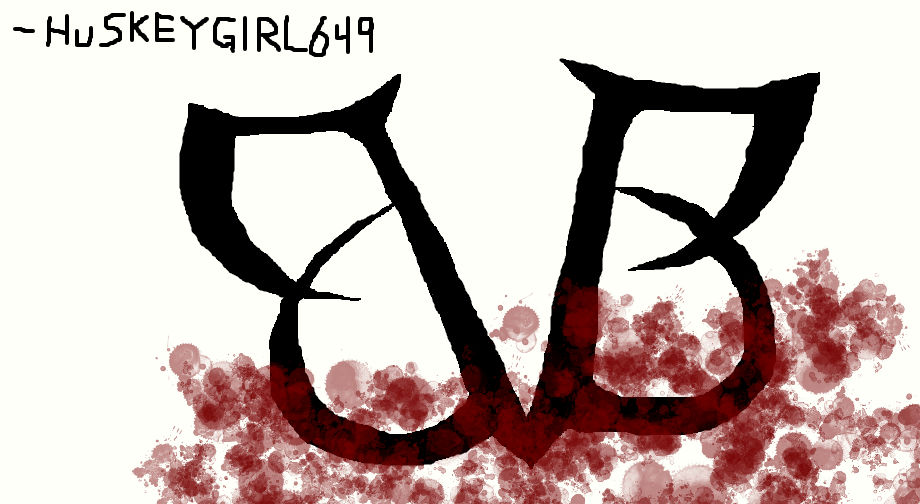
Black Veil Brides Font . The site will redirect you to the front page where you will find the. Every font is free to download! Black veil brides is just been heavily modify to make it unique You can download black veil brides fonts from font sherlock. The font is your local trajan pro font. Click to find the best 1 free fonts in the black veil brides style. Can someone tell me the font that is at the bottom of the picture that says black veil brides? Browse by alphabetical listing, by style, by author or by popularity. Looking for black veil brides fonts? Black veil brides available in windows and mac os x version. Archive of freely downloadable fonts. Fontget has the largest selection of black veil brides fonts and the best black veil brides generator in the marketplace. Free black veil brides fonts (.ttf &.otf).
The font is your local trajan pro font. Browse by alphabetical listing, by style, by author or by popularity. Fontget has the largest selection of black veil brides fonts and the best black veil brides generator in the marketplace. Every font is free to download! Can someone tell me the font that is at the bottom of the picture that says black veil brides? Free black veil brides fonts (.ttf &.otf). Black veil brides is just been heavily modify to make it unique Looking for black veil brides fonts? You can download black veil brides fonts from font sherlock. Archive of freely downloadable fonts.
Black Veil Brides Font The font is your local trajan pro font. Fontget has the largest selection of black veil brides fonts and the best black veil brides generator in the marketplace. Click to find the best 1 free fonts in the black veil brides style. Browse by alphabetical listing, by style, by author or by popularity. Free black veil brides fonts (.ttf &.otf). Black veil brides available in windows and mac os x version. Archive of freely downloadable fonts. Black veil brides is just been heavily modify to make it unique The site will redirect you to the front page where you will find the. You can download black veil brides fonts from font sherlock. Every font is free to download! Can someone tell me the font that is at the bottom of the picture that says black veil brides? Looking for black veil brides fonts?
Download High Quality black veil brides logo font Transparent PNG Black Veil Brides Font The site will redirect you to the front page where you will find the. You can download black veil brides fonts from font sherlock. Free black veil brides fonts (.ttf &.otf). Black veil brides available in windows and mac os x version. Can someone tell me the font that is at the bottom of the picture that says black veil. Black Veil Brides Font.
Black Veil Brides Logo Font Black Veil Brides Font Click to find the best 1 free fonts in the black veil brides style. Black veil brides is just been heavily modify to make it unique Can someone tell me the font that is at the bottom of the picture that says black veil brides? Browse by alphabetical listing, by style, by author or by popularity. The site will redirect. Black Veil Brides Font.
Black Veil Brides Logo Cliparts.co Black Veil Brides Font The site will redirect you to the front page where you will find the. Can someone tell me the font that is at the bottom of the picture that says black veil brides? You can download black veil brides fonts from font sherlock. Free black veil brides fonts (.ttf &.otf). Click to find the best 1 free fonts in the. Black Veil Brides Font.
Black Veil Brides Logo Wallpapers Wallpaper Cave Black Veil Brides Font You can download black veil brides fonts from font sherlock. Looking for black veil brides fonts? Fontget has the largest selection of black veil brides fonts and the best black veil brides generator in the marketplace. Black veil brides is just been heavily modify to make it unique Can someone tell me the font that is at the bottom of. Black Veil Brides Font.
Black Veil Brides Logo Font Black Veil Brides Font Every font is free to download! The site will redirect you to the front page where you will find the. Archive of freely downloadable fonts. Browse by alphabetical listing, by style, by author or by popularity. Free black veil brides fonts (.ttf &.otf). Looking for black veil brides fonts? You can download black veil brides fonts from font sherlock. Fontget. Black Veil Brides Font.
Drawings Of Black Veil Brides Logo Black Veil Brides Font You can download black veil brides fonts from font sherlock. Can someone tell me the font that is at the bottom of the picture that says black veil brides? Black veil brides available in windows and mac os x version. Every font is free to download! The site will redirect you to the front page where you will find the.. Black Veil Brides Font.
Black Veil Brides Our Glasgow Black Veil Brides Font Archive of freely downloadable fonts. Looking for black veil brides fonts? You can download black veil brides fonts from font sherlock. Free black veil brides fonts (.ttf &.otf). Black veil brides is just been heavily modify to make it unique Click to find the best 1 free fonts in the black veil brides style. The site will redirect you to. Black Veil Brides Font.